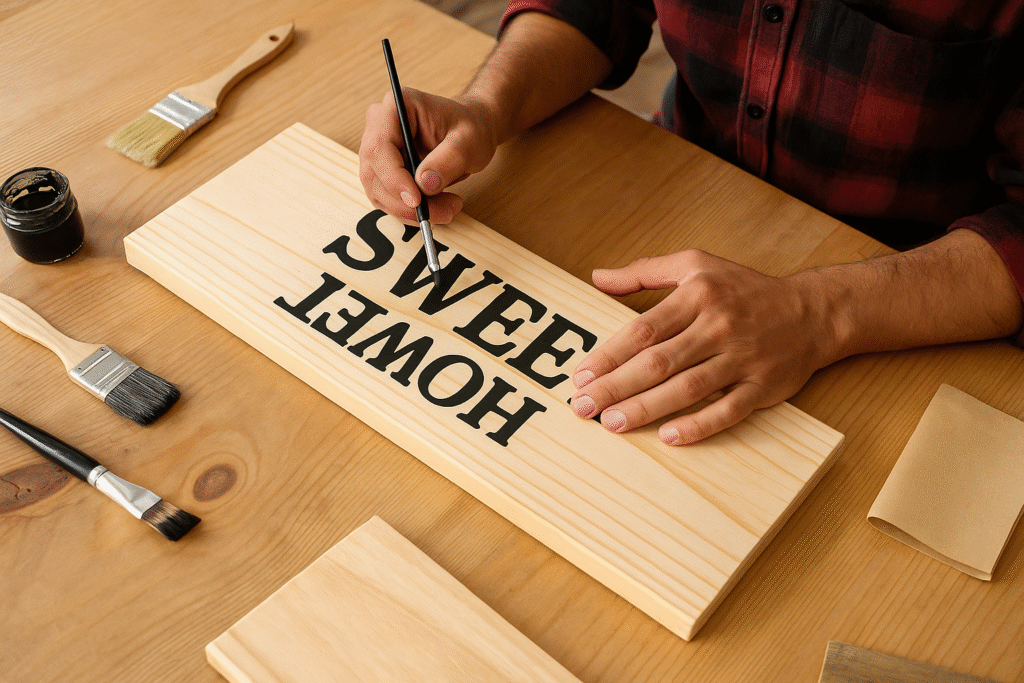
Ready to take your typographic talents from paper to planks? Today’s all about crafting wooden signs that say exactly what you want—in your style, your font, your voice. Whether it’s a farmhouse-chic “Welcome” by the door or a quirky “No Wi-Fi. Pretend it’s 1993” for your living room, typography on wood brings character and charm that lasts.
This is where your words become part of the furniture—literally.
🌲 Why Wood?
Wood is durable, rustic, and timeless. It can be sanded, stained, painted, burned, or carved—making it one of the most versatile typography-friendly surfaces. You’re not just writing words, you’re building heirlooms.
🔠 Typography Tips for Wooden Signs:
Bold fonts show up better from afar. Think Bebas Neue, Impact, or League Gothic.
Script fonts like Great Vibes or Sacramento work well for names or short phrases but avoid overusing them—they can be hard to read.
Mix fonts—pairing script with sans-serif can make your signs look pro.
Adjust kerning and line spacing so your design breathes and doesn’t look cramped.
✍️ Techniques for Getting Your Typography on Wood:
1. Paint + Stencil Method (Beginner-Friendly)
Sand & Prep the Wood
Smooth the surface and optionally apply a base coat or wood stain. -
Apply Vinyl Stencil or Printed Transfer
Use transfer paper or graphite paper to trace a printed design onto the wood. -
Paint Your Letters
Use acrylic paint and a small brush for precision. Remove stencils carefully. -
Seal It
Once dry, apply a sealer to protect it.
2. Hand Lettering with Paint Pens
Use oil-based paint pens directly on sanded wood. Great for freehand calligraphy or quick quotes!
3. Woodburned Typography (Intermediate to Advanced)
Trace your design.
Use a pyrography pen (wood burner) to slowly etch the design.
Add shading or textures for depth.
🧠 Unique Fact of the Day:
The Hollywood sign—perhaps the most iconic typography on wood (okay, technically metal now)—was originally a wooden structure advertising a real estate development in 1923. That’s one BIG wooden sign success story.
🔤 Font of the Day:
ChunkFive or Anton for bold and rustic vibes. If you want something more classic-country, go for Homemade Apple or Pacifico.
🪵 Creative Wooden Sign Ideas:
Welcome Boards: Lean against the front door or hang vertically.
Kitchen Signage: “But First, Coffee” or “Bake the World a Better Place.”
Workshop Rules: “Measure Twice, Cut Once” never looked so official.
Kids’ Room Decor: Use colorful fonts and names.
Directional Arrows: Great for events or garden paths.
🧪 Advanced Idea: Mixed-Media Wood Typography
Add metal letters, rope accents, or even 3D printed pieces on wood for a modern-industrial mashup.
✨ Pro Tips:
Light-colored wood makes dark letters pop; dark stains need white or metallic lettering.
If you’re mixing fonts, contrast style AND weight—like bold sans-serif + thin script.
Always test your paint or burn depth on scrap wood before you commit.